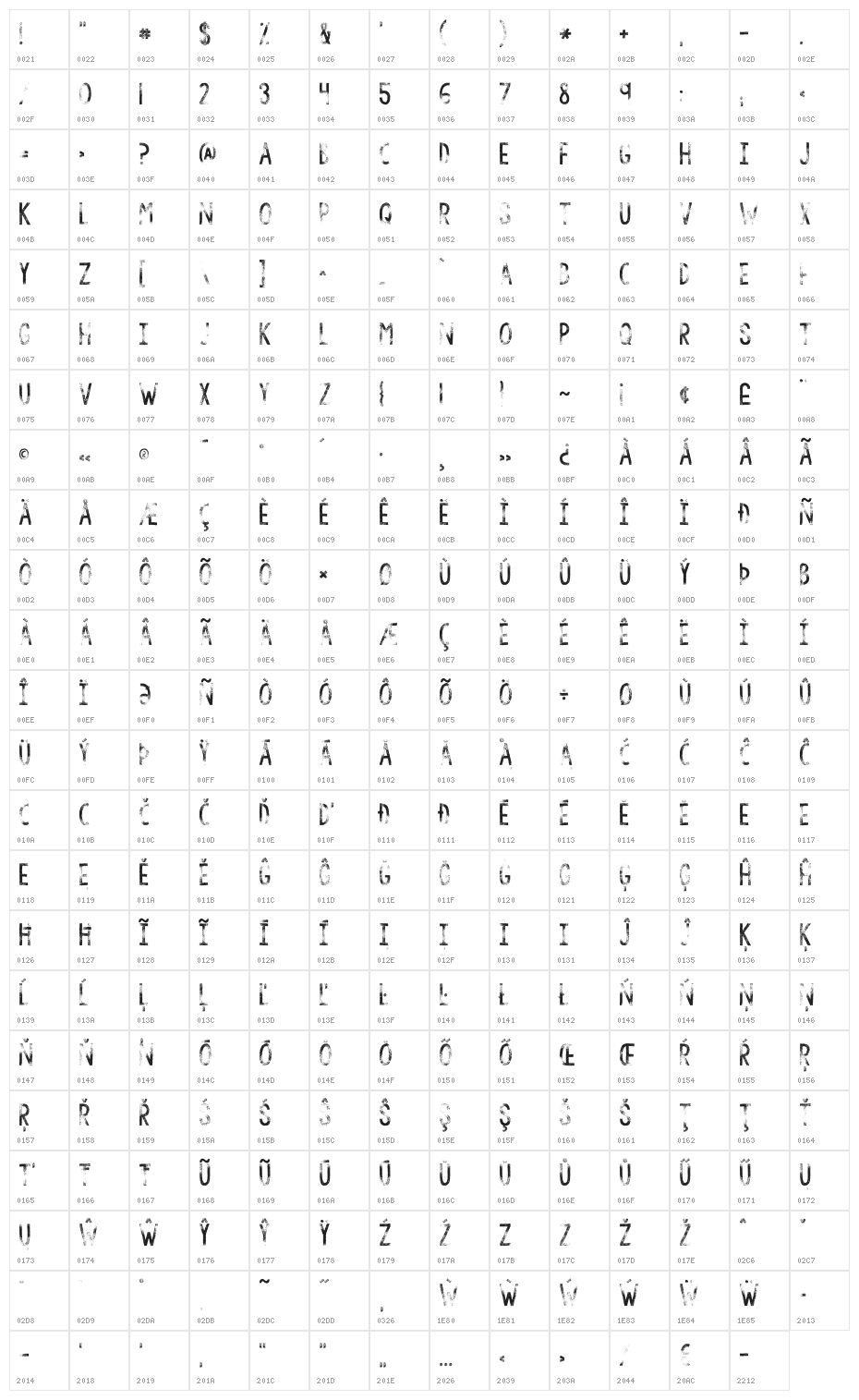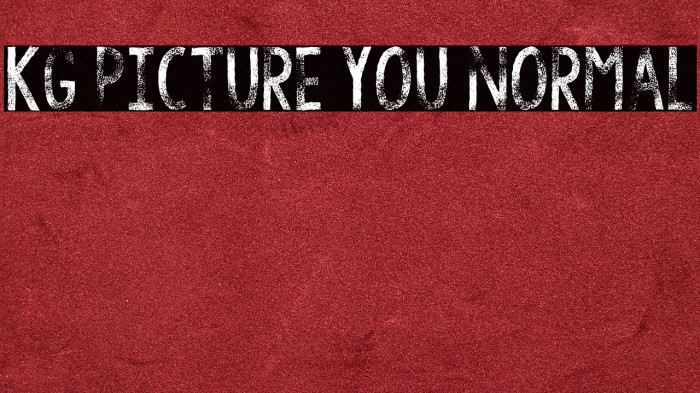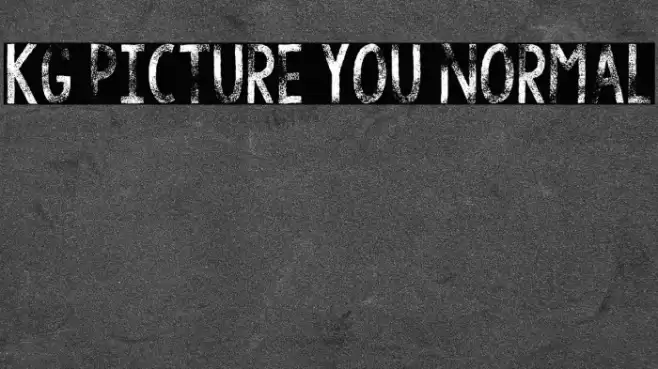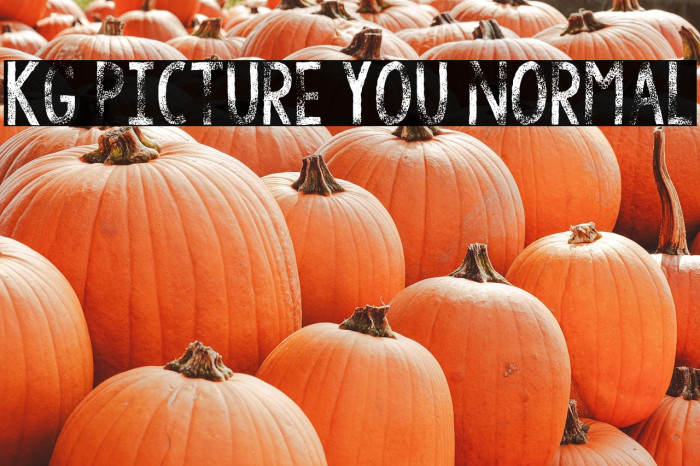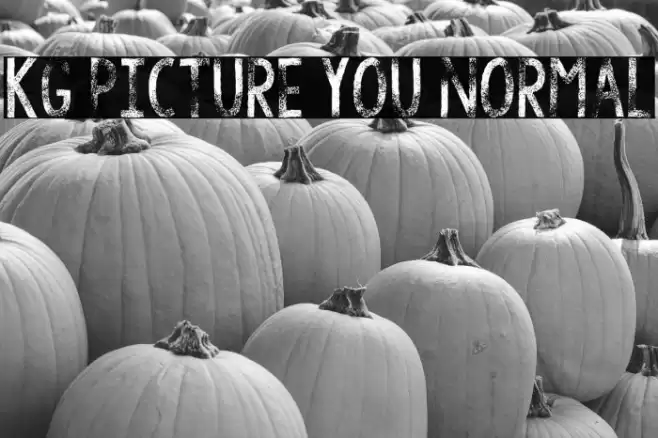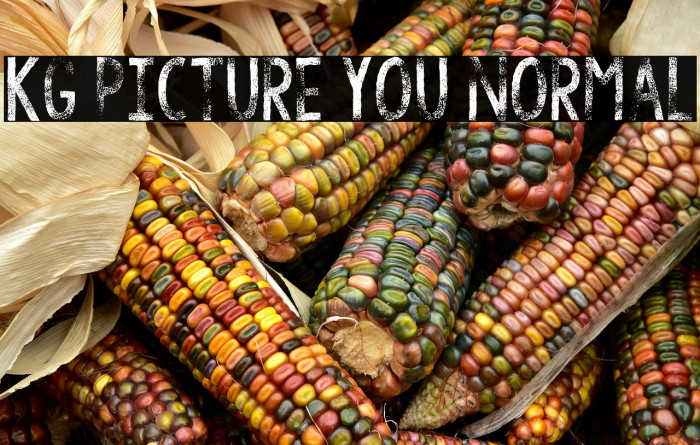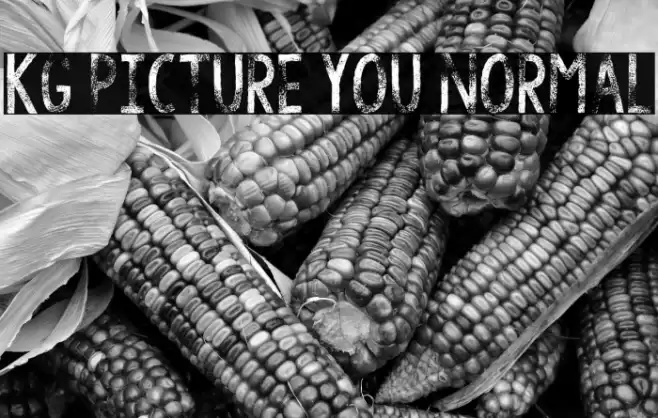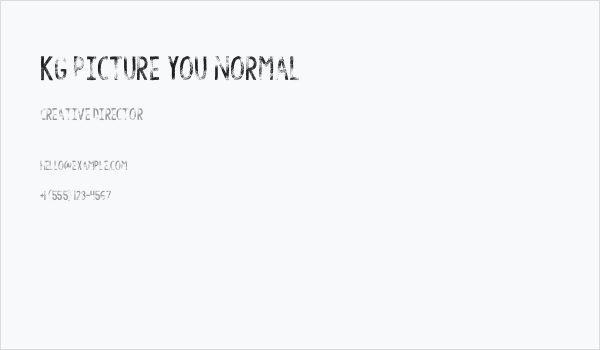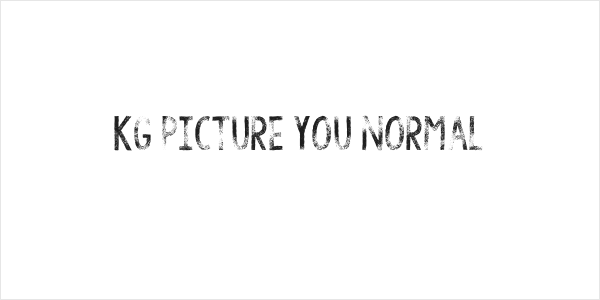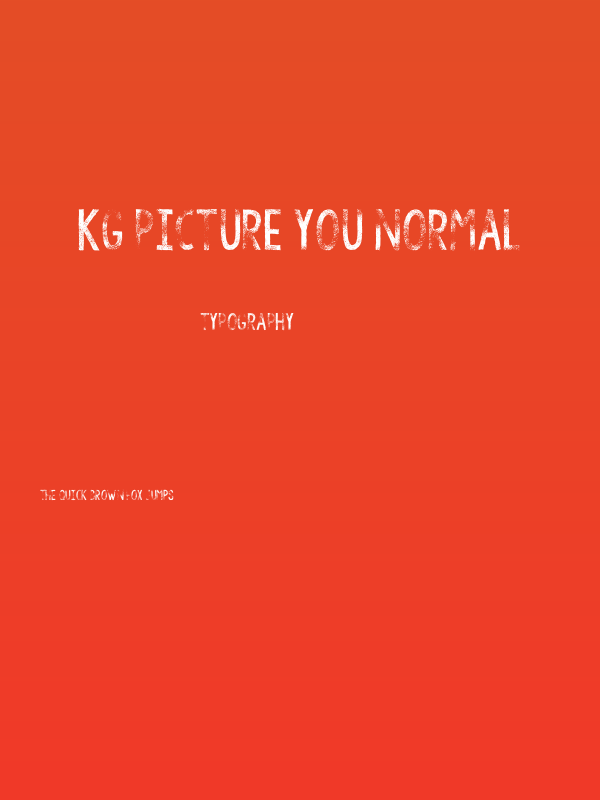
KG Picture You Normal Font
| Projets proposés | Ideal for projects that require a vintage or rustic feel, such as posters, branding for artisanal products, or themed event invitations. |